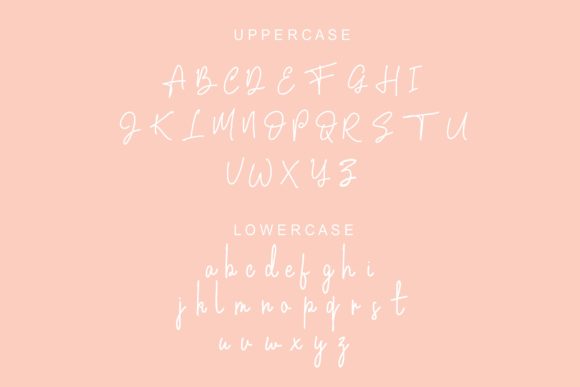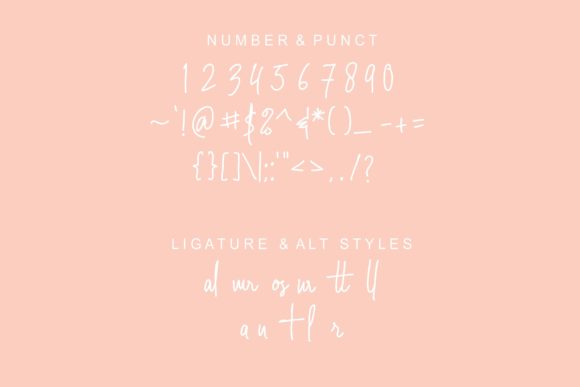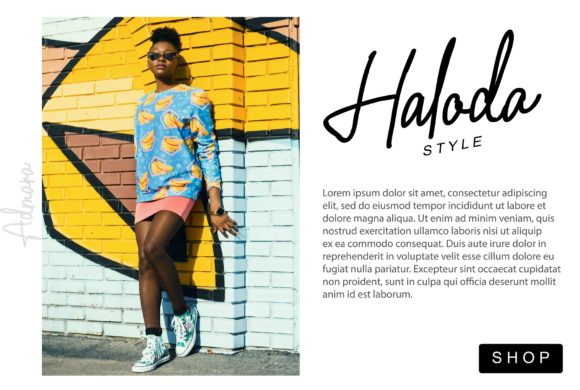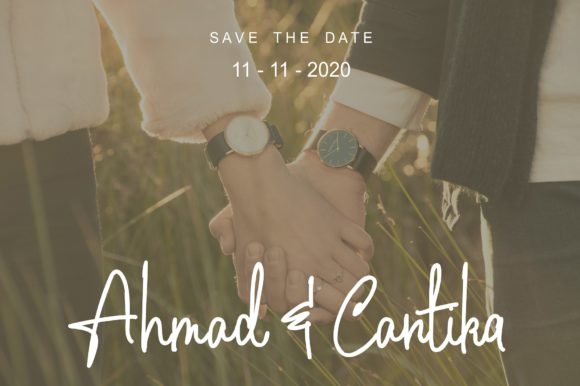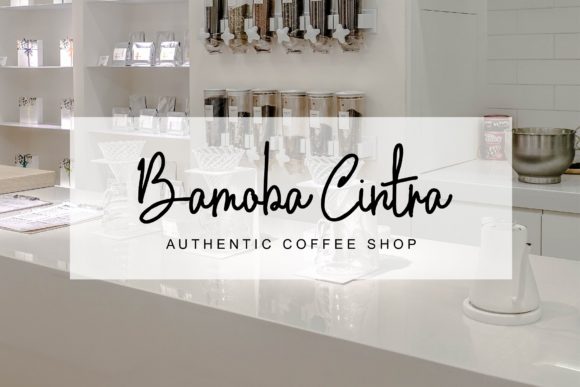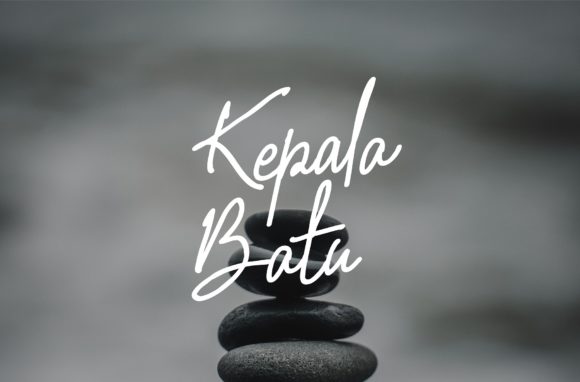
Introduction to Admara Font
Have you ever been working on a creative project and struggled to find the perfect font to give it that extra oomph? You know, that one font that makes your design stand out from the crowd and leaves a lasting impression on your audience. Well, I’ve got some exciting news for you – I’ve recently stumbled upon the adorable Admara Font, and I just can’t get enough of it!
This charming handwritten font has an authentic handcrafted feel that’s perfect for adding a touch of personality to your designs. Whether you’re working on a signature, stationery, logo, or even a book cover, the Admara Font is sure to bring a smile to your face and make your design project shine.
Key Features of Admara Font
- Unique, elegant script font with a transparent background, ideal for adding a touch of sophistication to your designs.
- Perfect for use in a variety of design contexts, including branding, advertising, and digital media, where a high-quality, custom font is required.
- Designed to be highly legible and readable, making it an excellent choice for body text and headlines in creative projects.
Honest Review: Admara Font
I recently stumbled upon the Admara Font while searching for a high-quality design resource for a creative project. I was pleasantly surprised by its sleek and modern design.
- ✨ The font is incredibly versatile and can be used for a wide range of creative projects, from branding to editorial content.
While the Admara Font is a solid choice, there are a few limitations to consider:
- ⚠️ The font may not be suitable for projects that require a more traditional or classic feel.
- ⚠️ Some users may find the font’s modern aesthetic too trendy or overused.
Overall, I’m impressed with the Admara Font’s high quality and versatility. It’s an excellent addition to any designer’s toolkit, especially for creative projects that require a modern and sleek aesthetic.
Tips for Getting the Most Out of Admara Font
To get the most out of the Admara Font, experiment with different font sizes and styles. You can also use the font in combination with other design elements, such as images and graphics, to create a unique and eye-catching design.
The Admara Font is a versatile design resource that can be used in a variety of creative projects, including logos, brochures, and social media graphics.